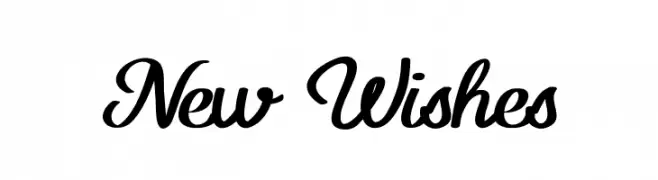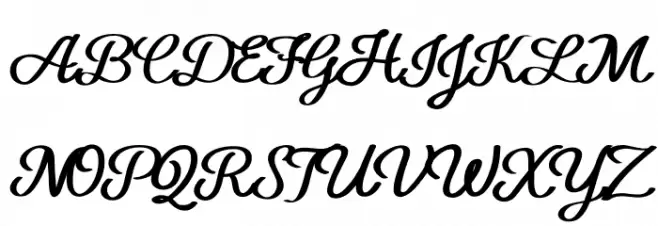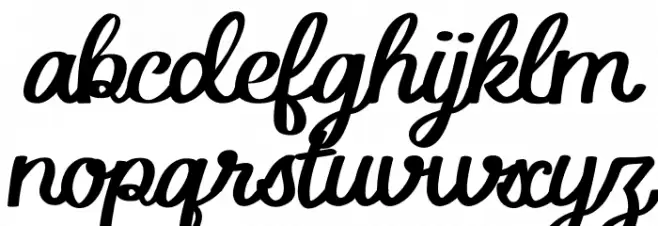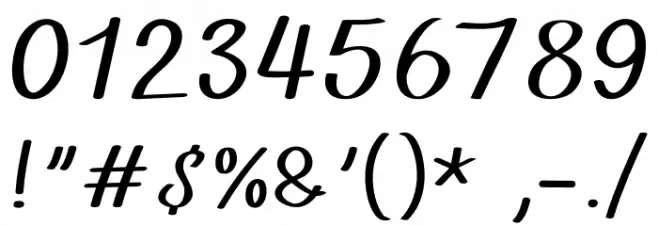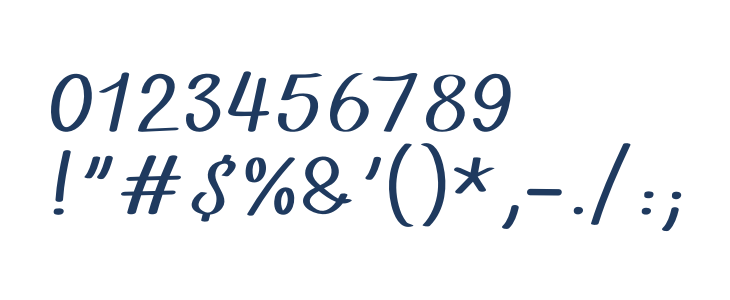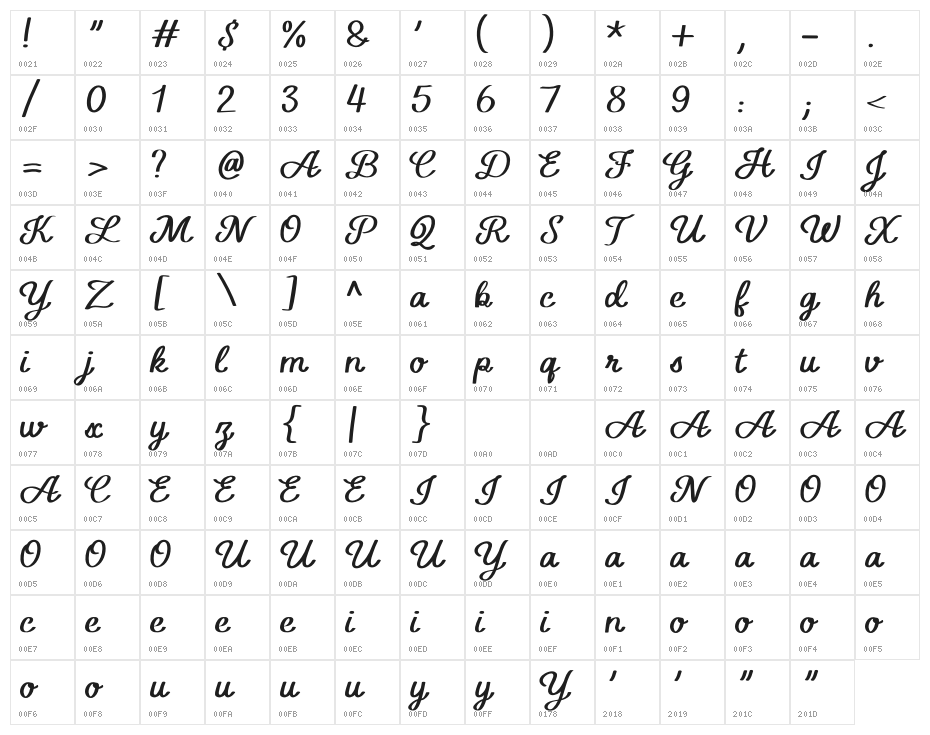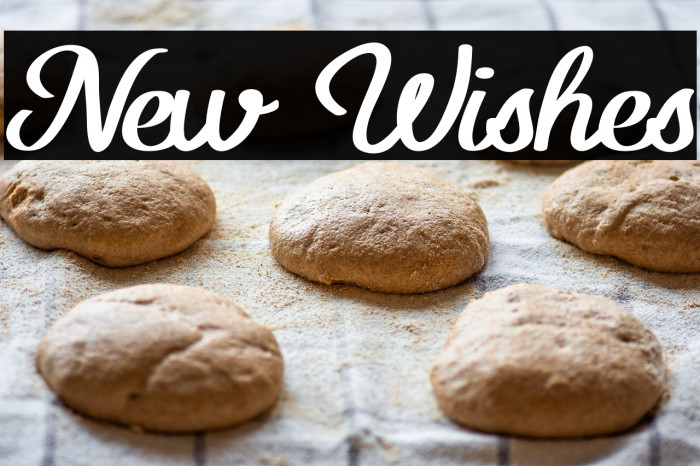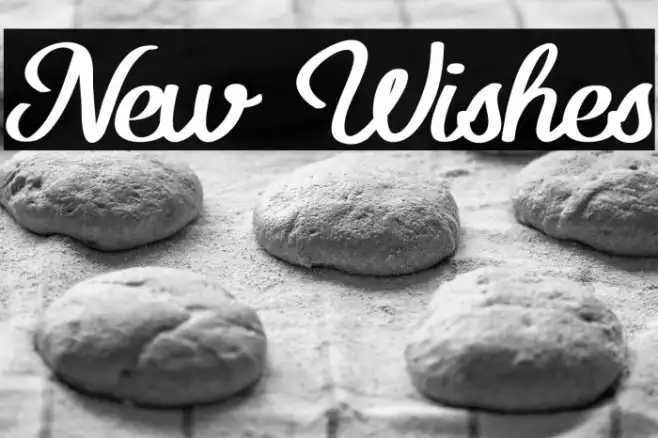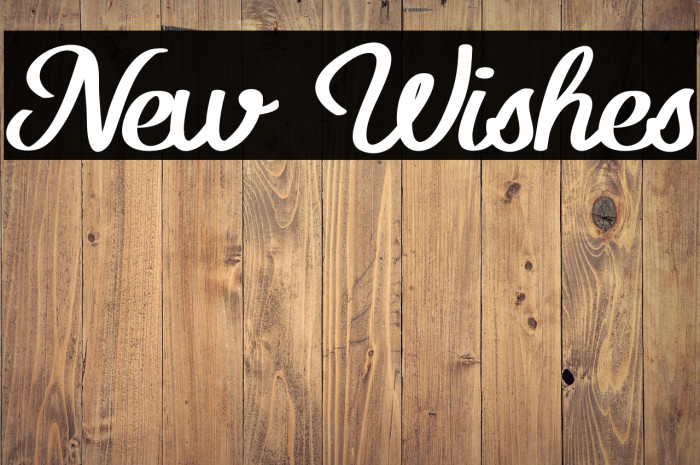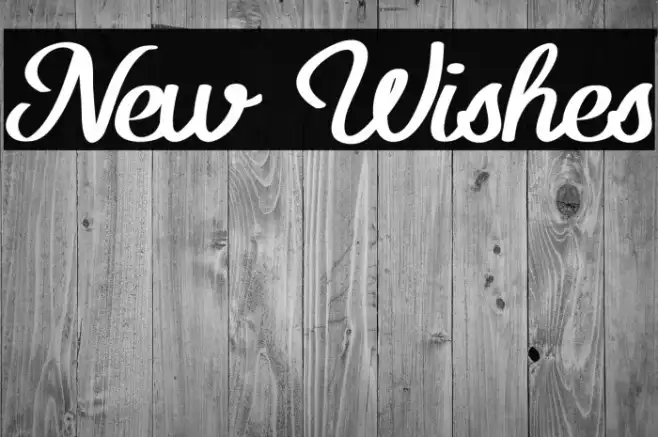
( Introducing a gorgeous and outstanding typeface that is New Wishes Modern Script Font. The typeface falls in the category of Script font family and is the best creation of Fontles. FREE )
New Wishes Font